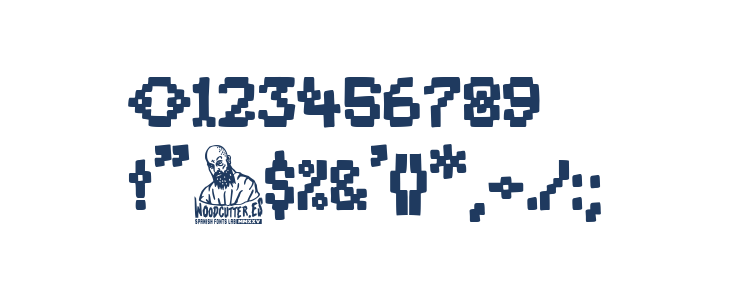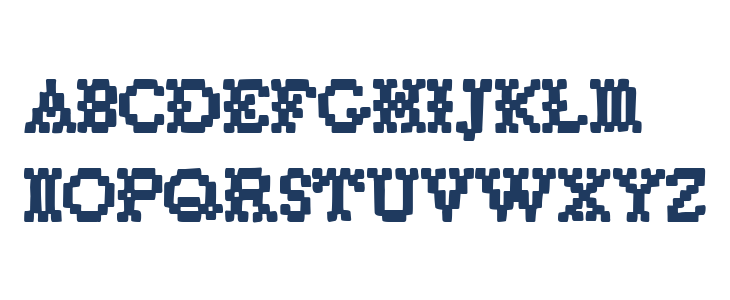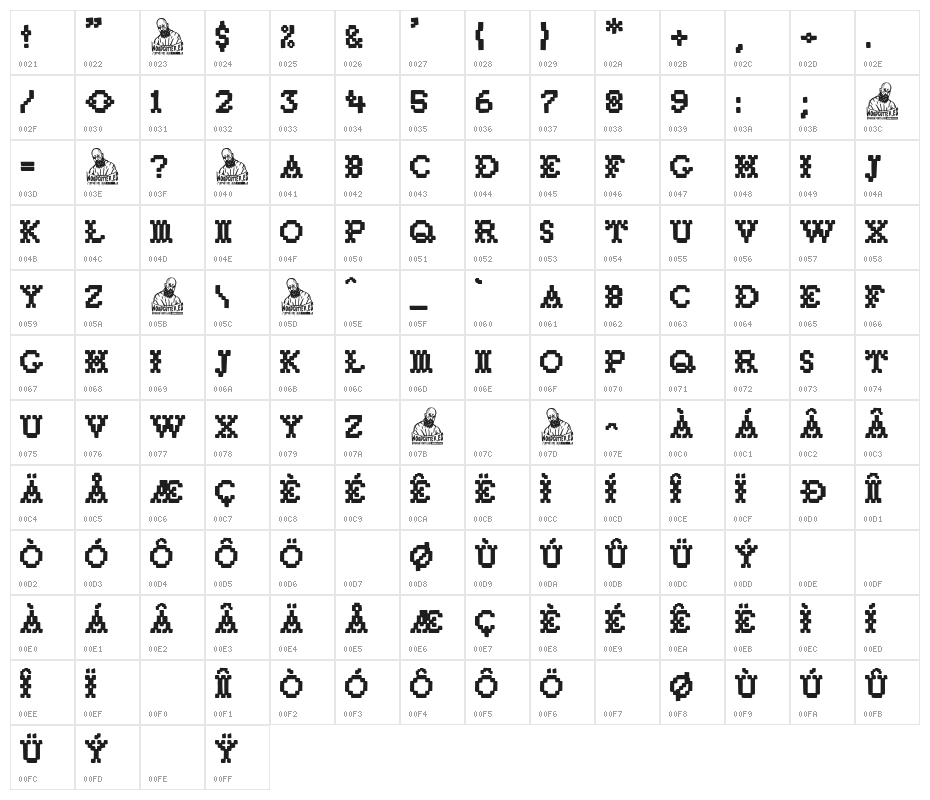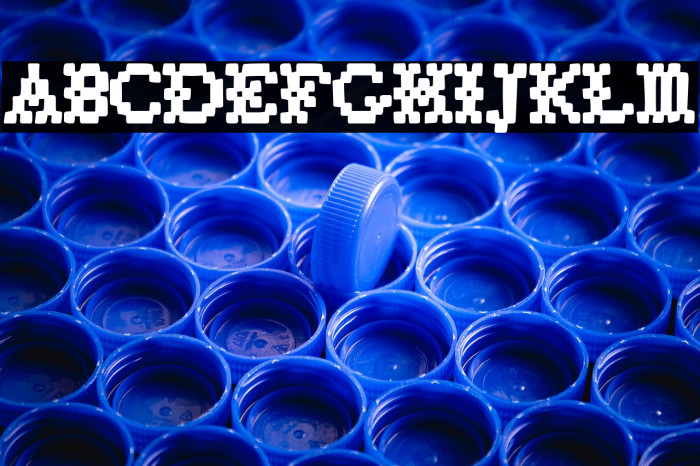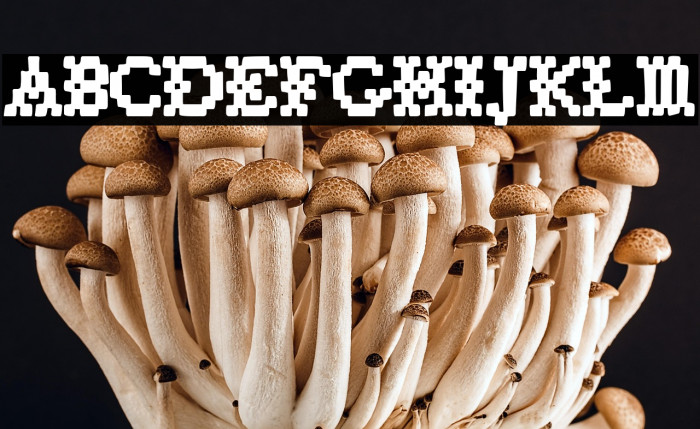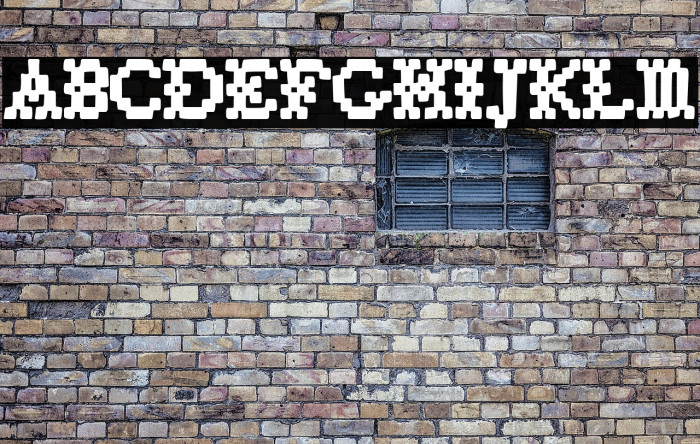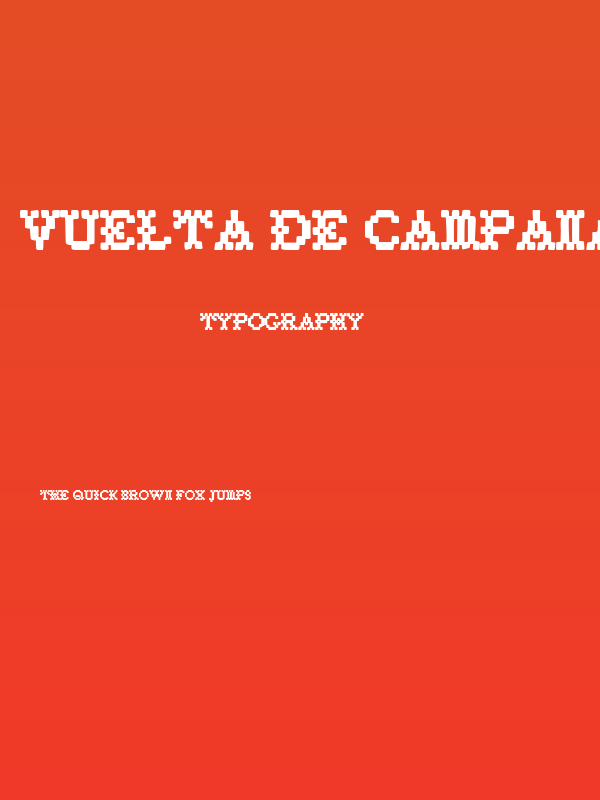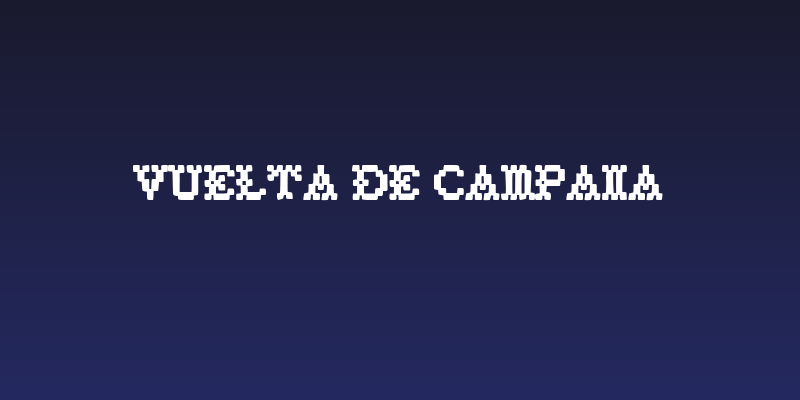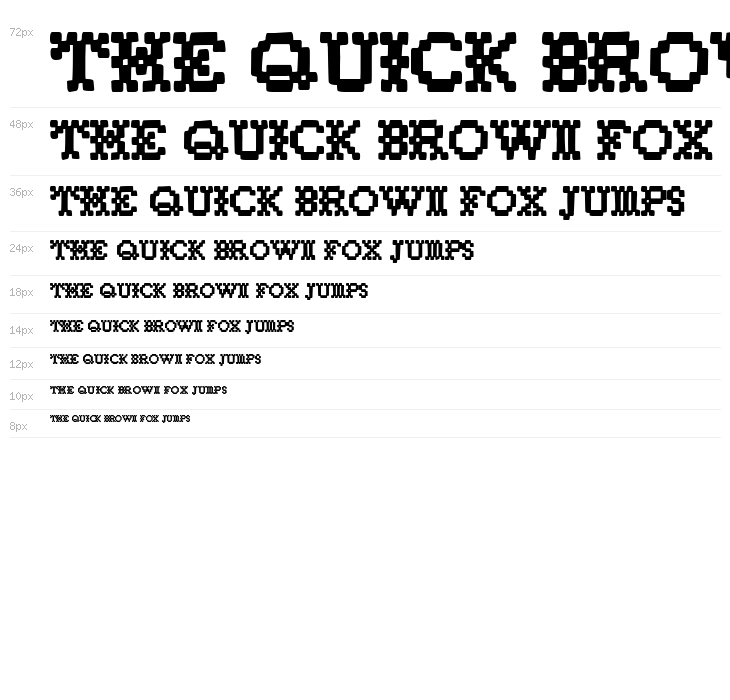
Vuelta De Campana Font
Vuelta De Campana Description
A bold, pixelated display font with blocky, geometric letterforms and consistent stroke thickness. The characters have a modular, grid-based appearance, evoking a retro digital or video game aesthetic. The spacing is tight, and the overall style is playful and decorative.
| Overall Style | Decorative, Retro, Playful |
| Proposed Projects | Video game titles, posters, event flyers, digital art, retro-themed branding. |